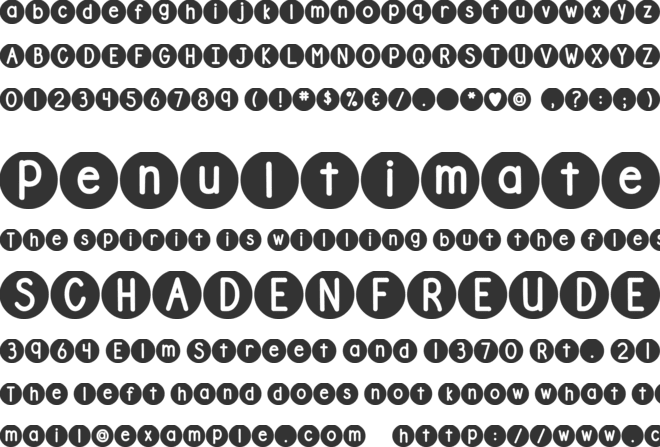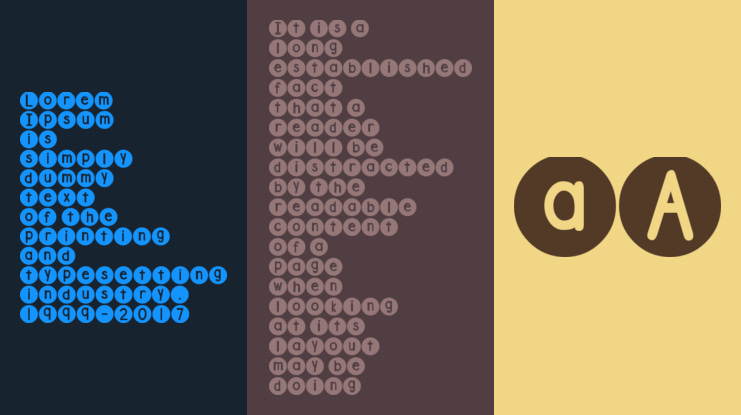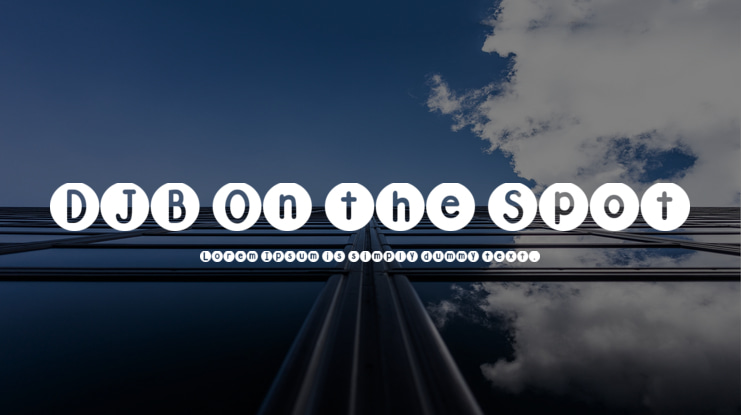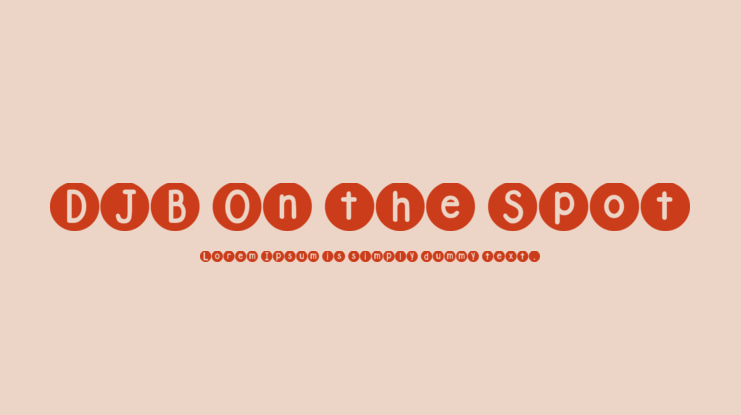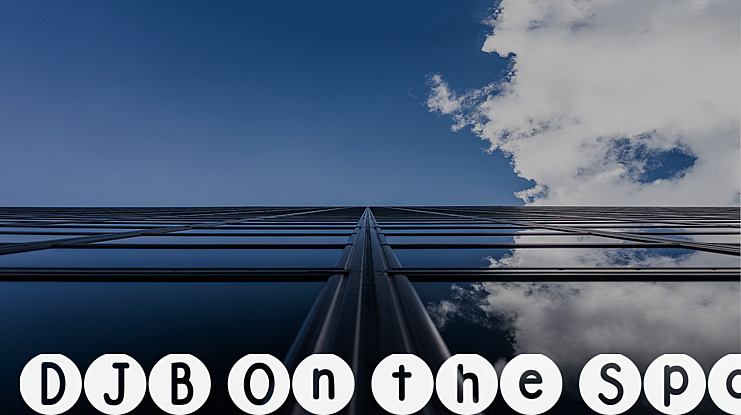
DJB On the Spot Font
Be on the spot with this font from DJB Fonts - bold circular font with charcters from A-Z, 0-9 and most common punctuation marks.